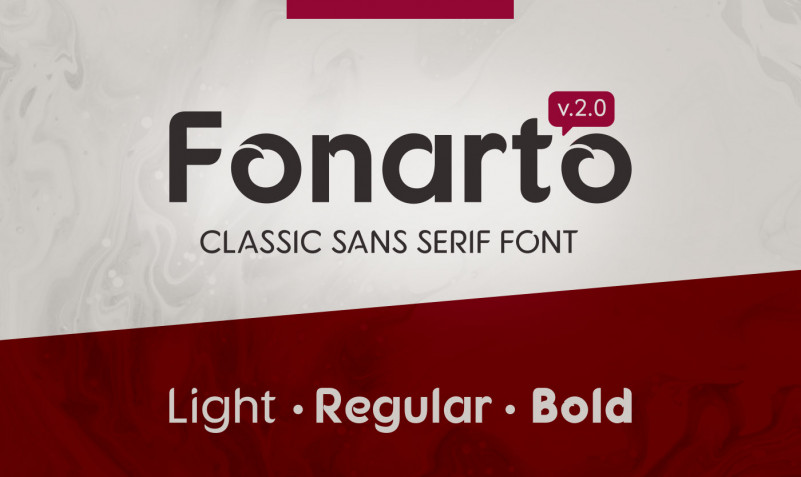
Fonarto v.2.0 Sans Font Family
Thank you for looking Fonarto v.2.0 Font. This is a classic sans serif font. It was developed based on the first Fonarto font family version of the author, and with a style that is very different from the others. Inspired by the style of design that is currently popular, and this is the answer to all the needs of every idea that you will pour in this modern era. Which allows you to create designs that are sporty and elegant in style very suitable for design needs such as business cards, brochures, magazines and other sporty themed design needs.